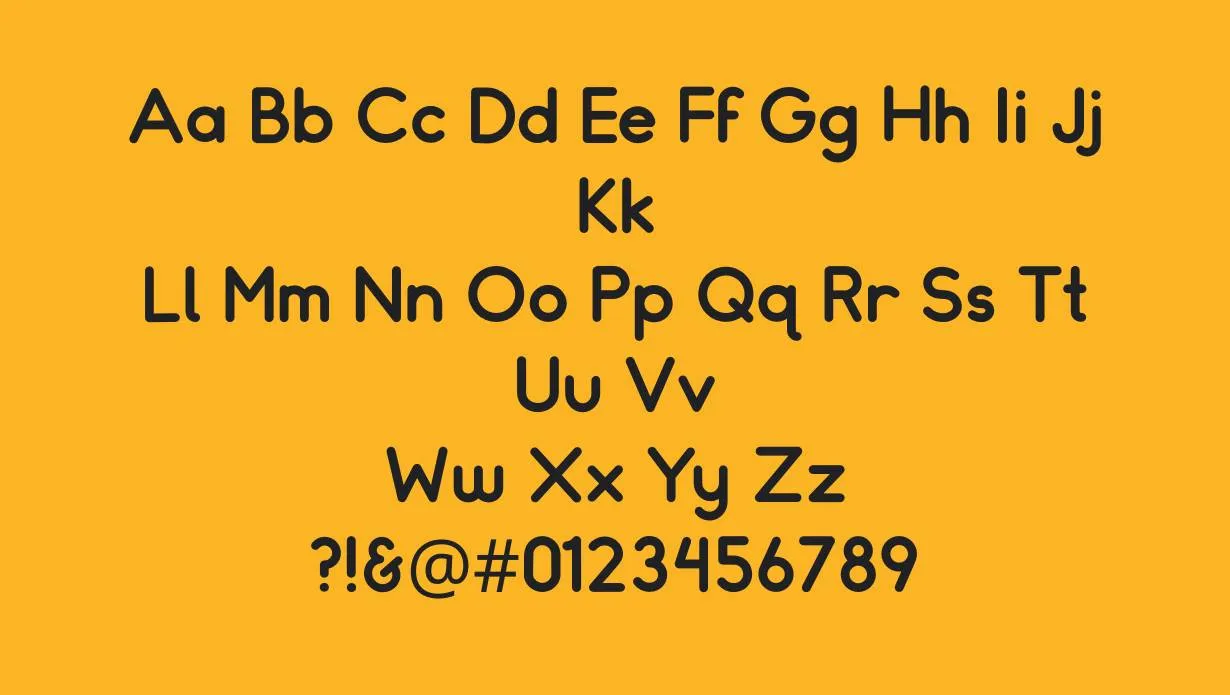
Somatic Rounded Font brings a modern and friendly aesthetic to your designs. With its rounded and smooth letters, this font is perfect for projects that want to convey a sense of approachability and contemporary style. Use it for websites, product packaging, or any design where a clean and friendly appearance is desired.
The font’s technical details include a moderate weight and rounded design elements, creating an overall appearance that adds a touch of warmth and modernity. Somatic Rounded Font is crafted for projects that aim to create a welcoming and up-to-date visual experience.
| Name | Somatic Rounded Font |
| Designer | Lauren Lee |